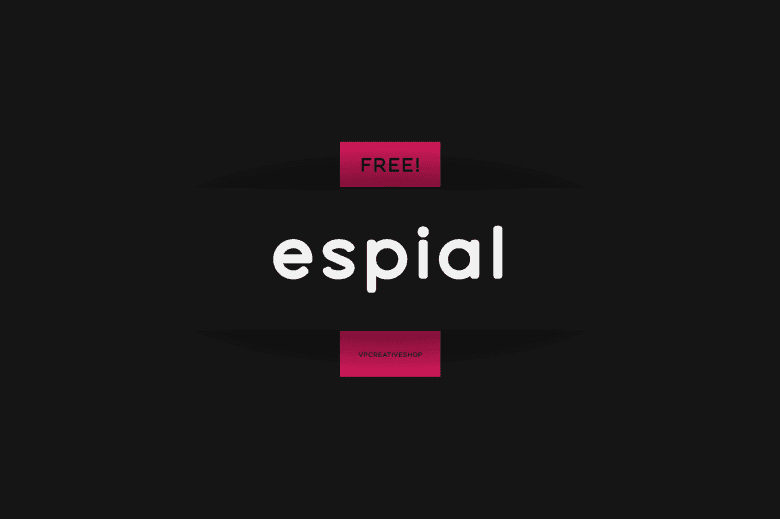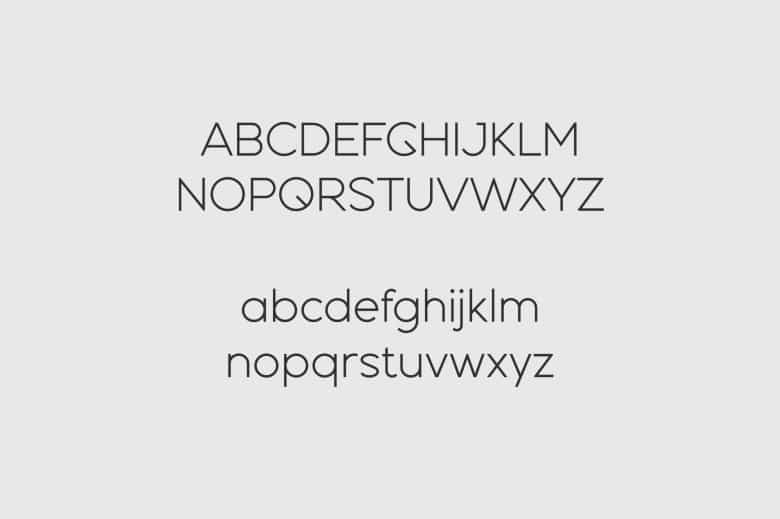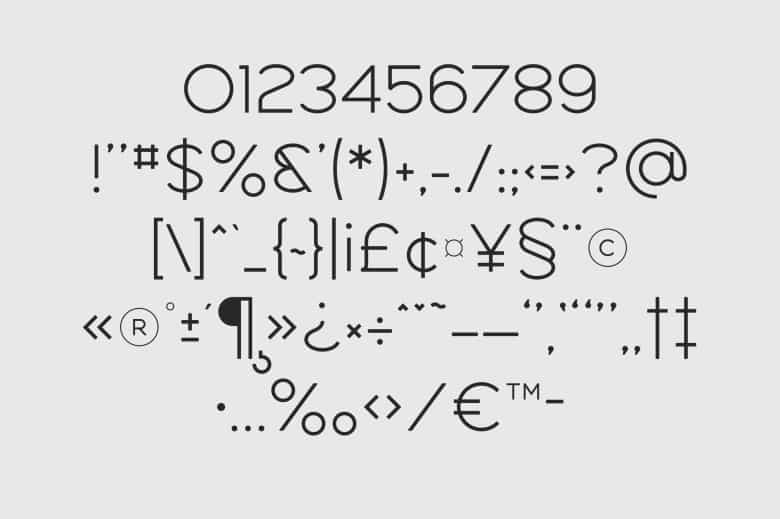
Discover Espial Font, part of the Sans Serif collection—a versatile and unique font perfect for adding a personal touch to your projects. Download it for free and enjoy crafting designs with style, from invitations to social media posts. This font is available exclusively for personal use, giving you the freedom to create without limits. Unlock your creativity with Espial Font today!
Espial Font: First Release For incredible typographic designs, Espial font is your solution! With 36 font styles featuring eye-catching ligature glyphs that give text an individual aesthetic. From retro to modern vibes – Espial has you covered!